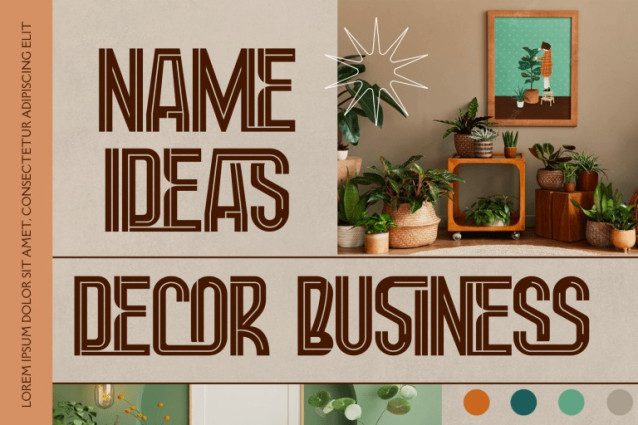
Traditional Techniques Font
TRADITIONAL TECHNIQUES – SPORT FONT, a bold and striking Geometric Sans-Serif Display Font that merges retro aesthetics with modern modular design. Its structured letterforms and layered line details give every word a dynamic and architectural presence. Perfect for posters, branding, album covers, editorial layouts, or any creative project that needs a touch of timeless futurism.
🔤Features:
Uppercase & Lowercase Letters
Around 100 Special Ligatures for creative flexibility
Numerals & Punctuation for complete usability
Accented Characters supporting multiple languages
🔤About 100 ligatures combined with Stylistic Alternates Font:
AC AD AL AN AR AS AT AU AV BE CA CE CH CO CT DE DI EA EC ED EE EL EM EN EP ER ES ET FE FO FR GE HA HE HI HO IE IC IL IN IO IR IS IT JU KE LA LE LI LL LO LY MA ME MI NC ND NE NG NO NT NS OC OF OM ON OO OP OR OT OU OW PA PR RA RD RE RI RO RS RT SE SH SI SO SS ST TA TE TH TI TO TR TT UM UN UR VE WI WO